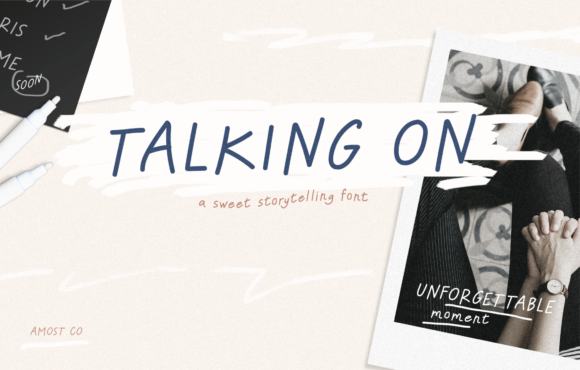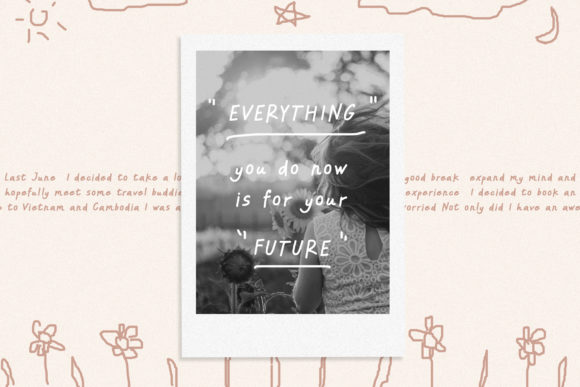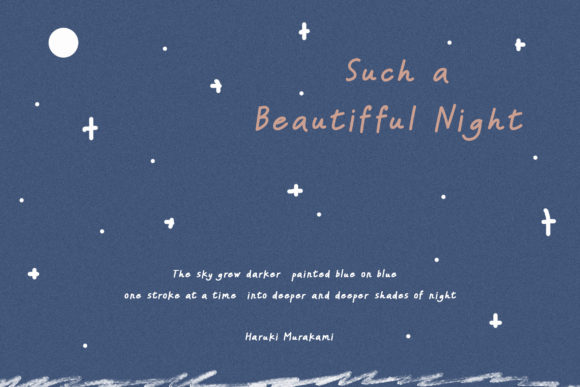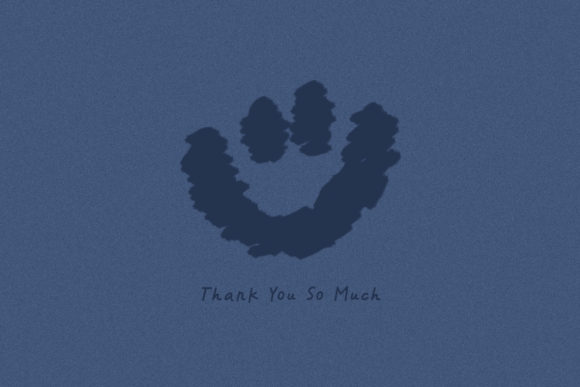
Talking on
About Talking on Font
Talking on is a sweet and friendly handwritten font. Its natural and unique style makes it incredibly fitting to a large pool of designs. The only limit is your imagination!